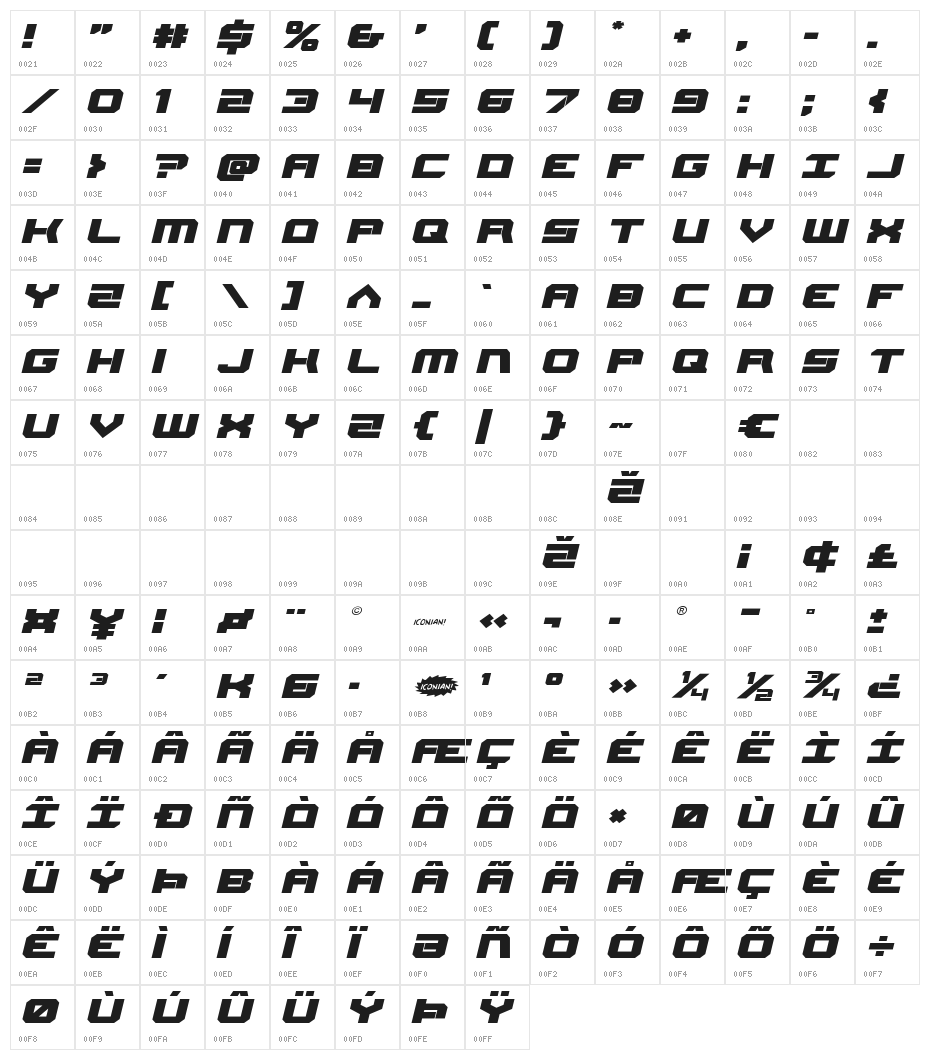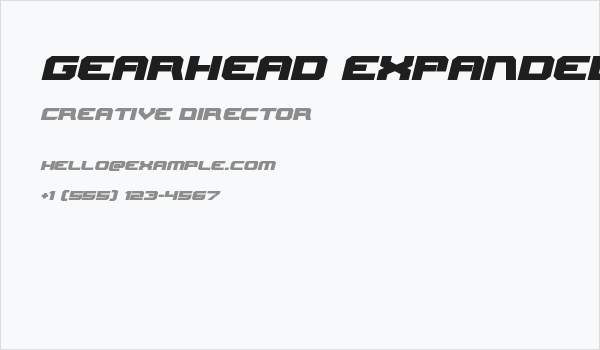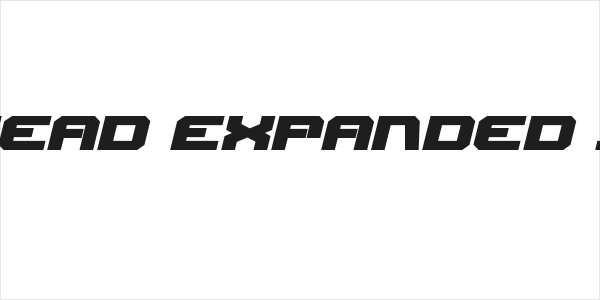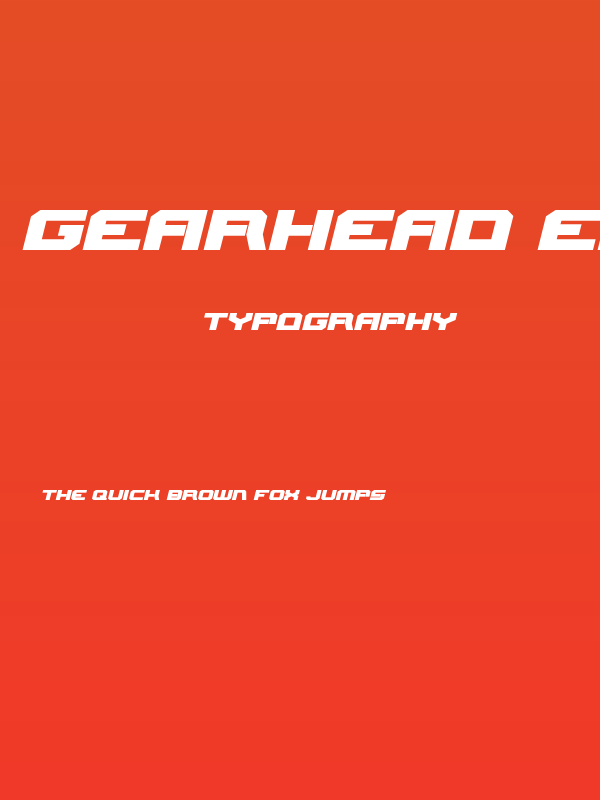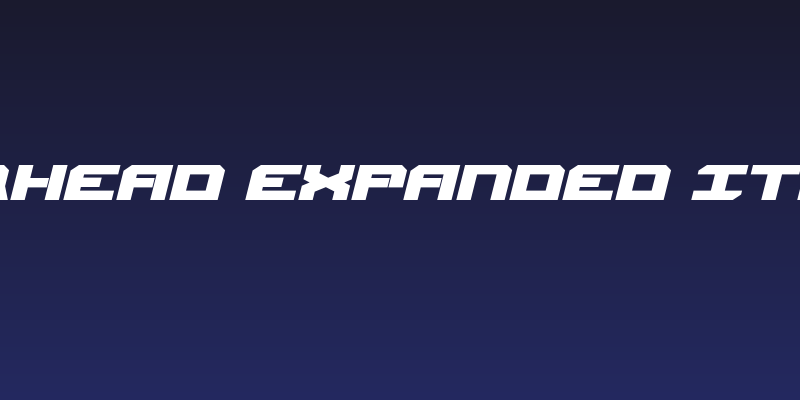
Gearhead Expanded Italic Font
Gearhead Expanded Italic Description
This font features a bold, futuristic design with an expanded width and italicized slant, giving it a dynamic and energetic appearance. The characters are constructed with sharp, angular edges and a geometric style that conveys a sense of speed and modernity. The uppercase and lowercase letters maintain a consistent height, while the numerals and special characters integrate seamlessly with the overall aesthetic. The font's design is highly legible, making it suitable for impactful headlines and attention-grabbing displays.
| Proposed Projects | Ideal for technology branding, sports team logos, video game titles, and sci-fi movie posters. |